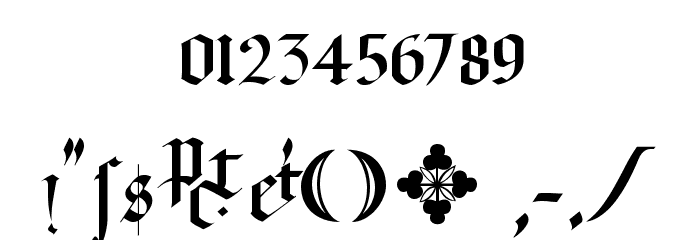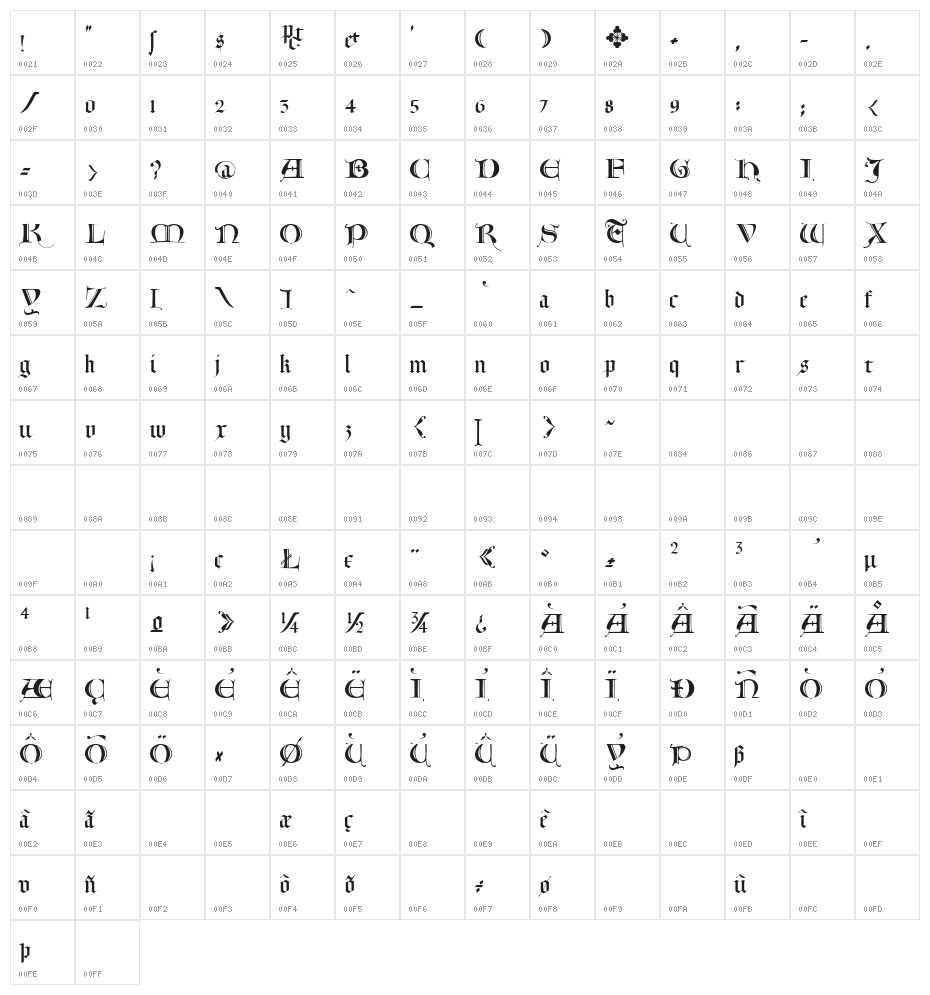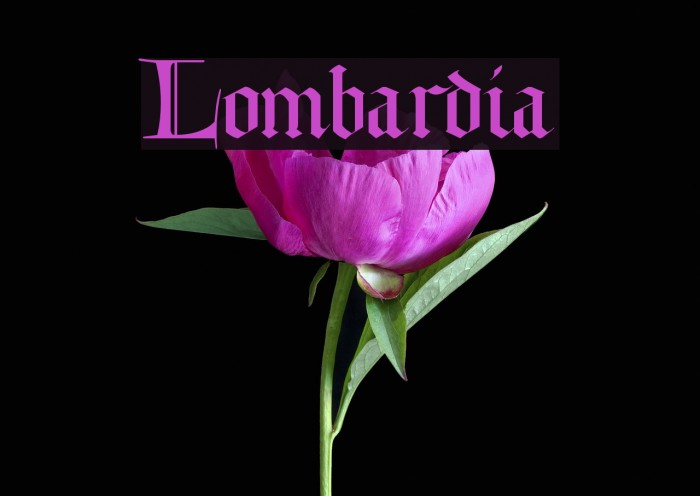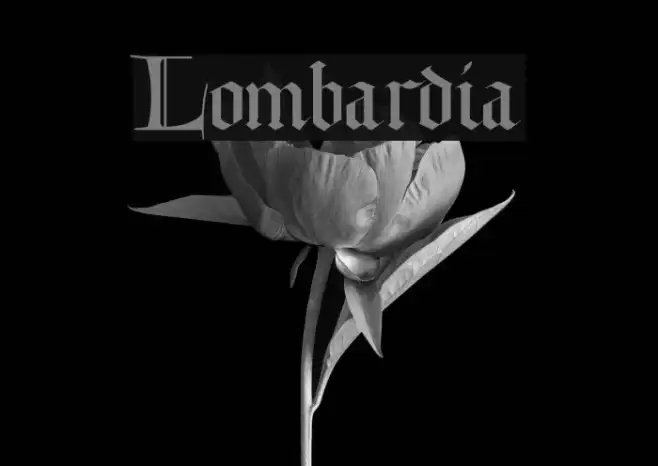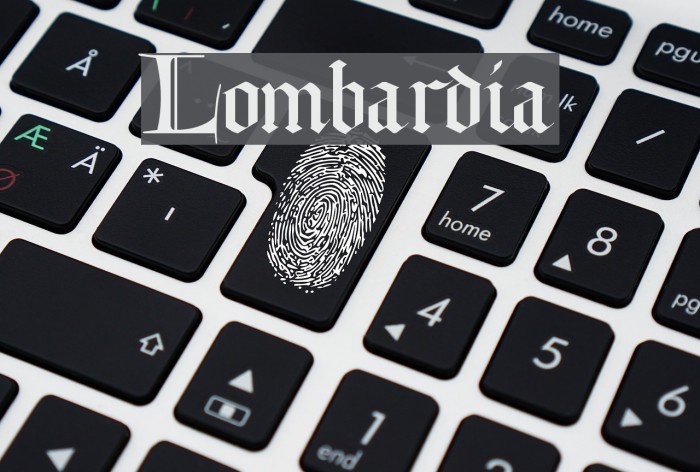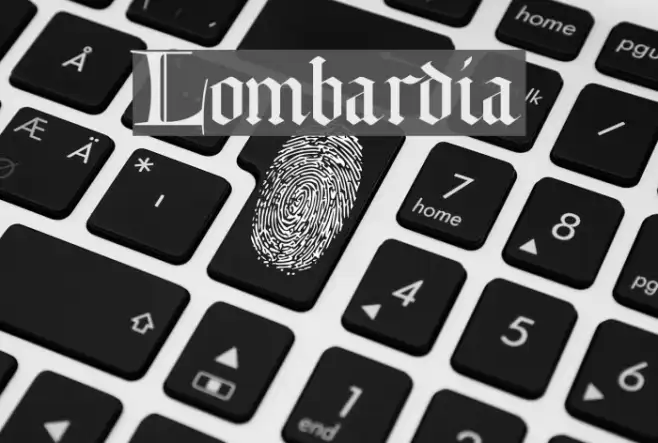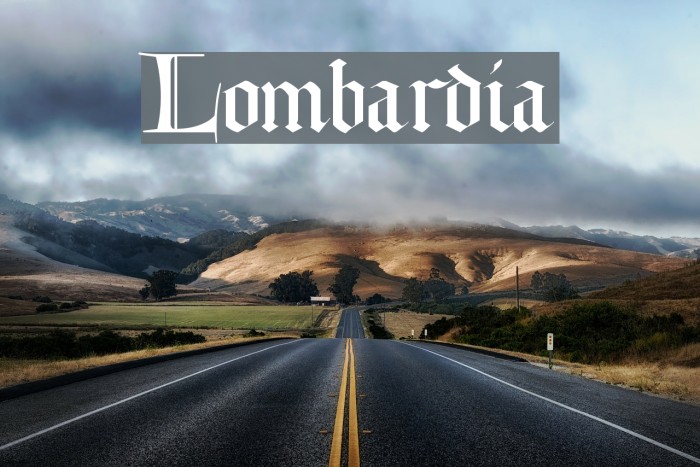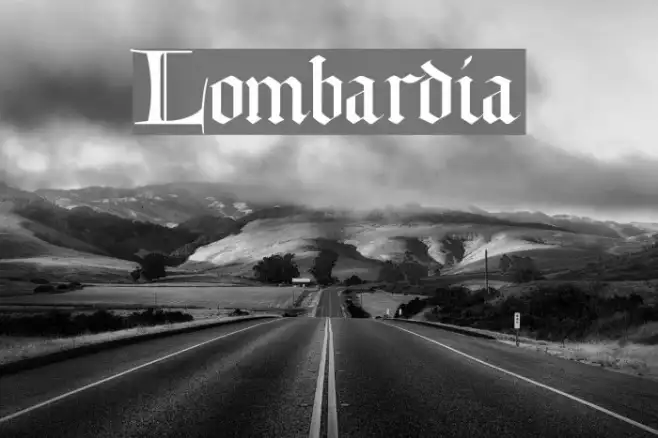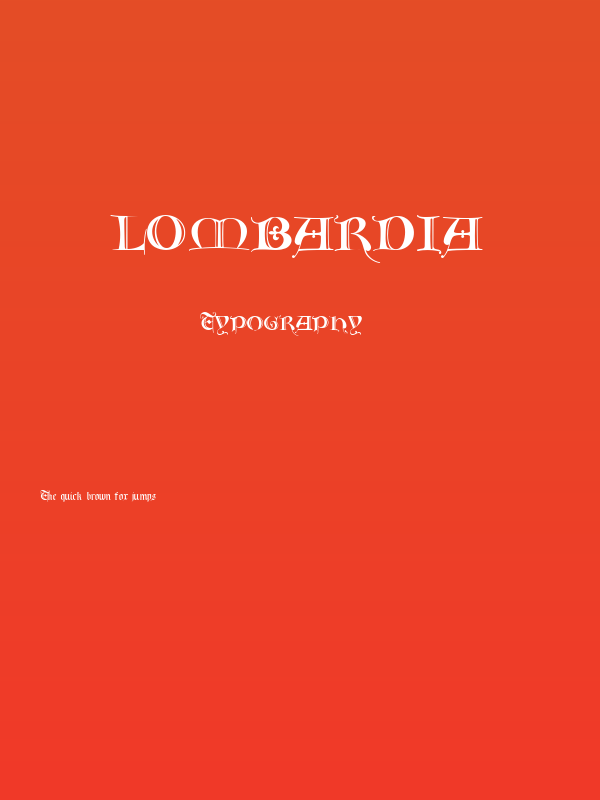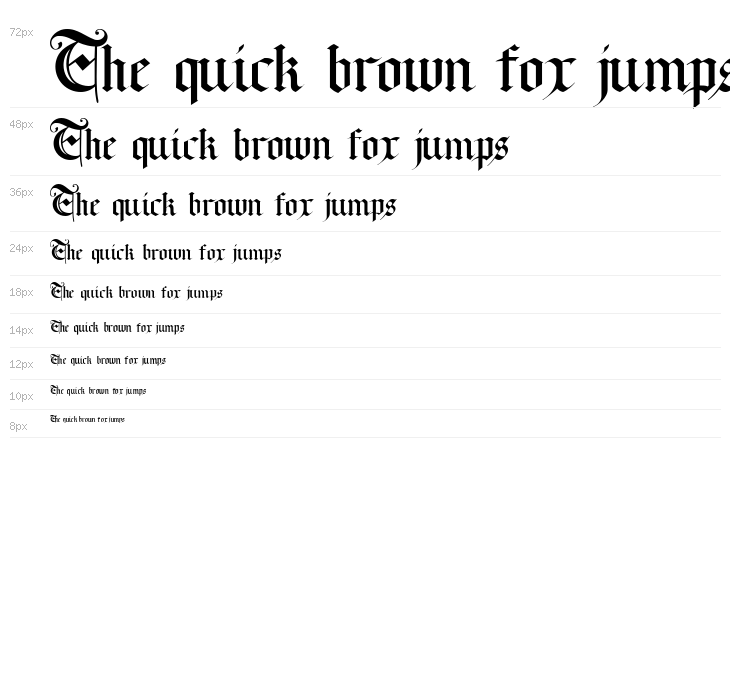
Lombardia Font
Lombardia Description
This font exhibits a classic blackletter style, characterized by its ornate and intricate design. The uppercase letters are particularly elaborate, with flourishes and sharp angles that give a sense of historical elegance. The lowercase letters maintain a consistent style, with a slightly more subdued ornamentation, making them more readable while still retaining the overall aesthetic. The numerals are distinct and align well with the gothic theme, featuring sharp edges and a bold presence. Special characters are uniquely styled, adding to the decorative nature of the font. This font is ideal for projects that require a touch of medieval or gothic flair, such as historical documents, themed event invitations, or branding for products that wish to convey a sense of tradition and craftsmanship.
| Proposed Projects | Ideal for historical documents, themed event invitations, or traditional branding. |